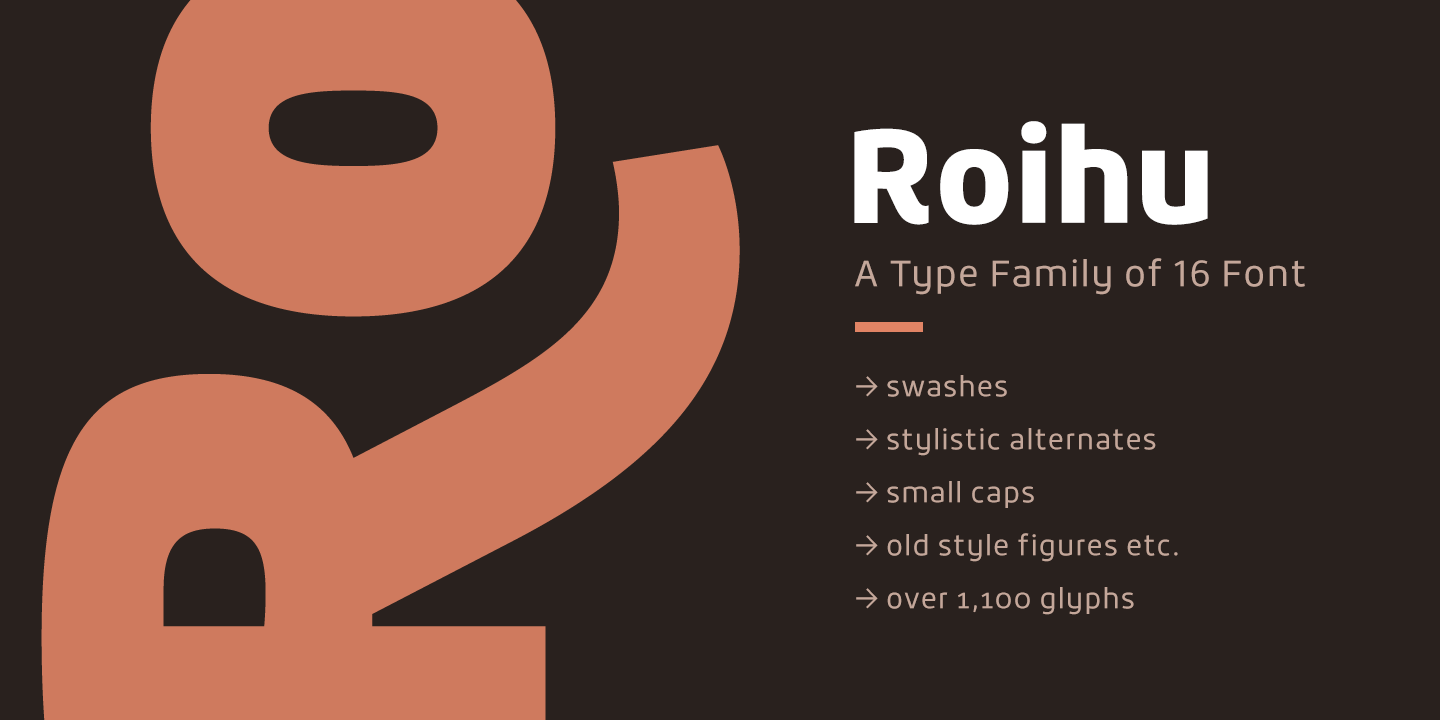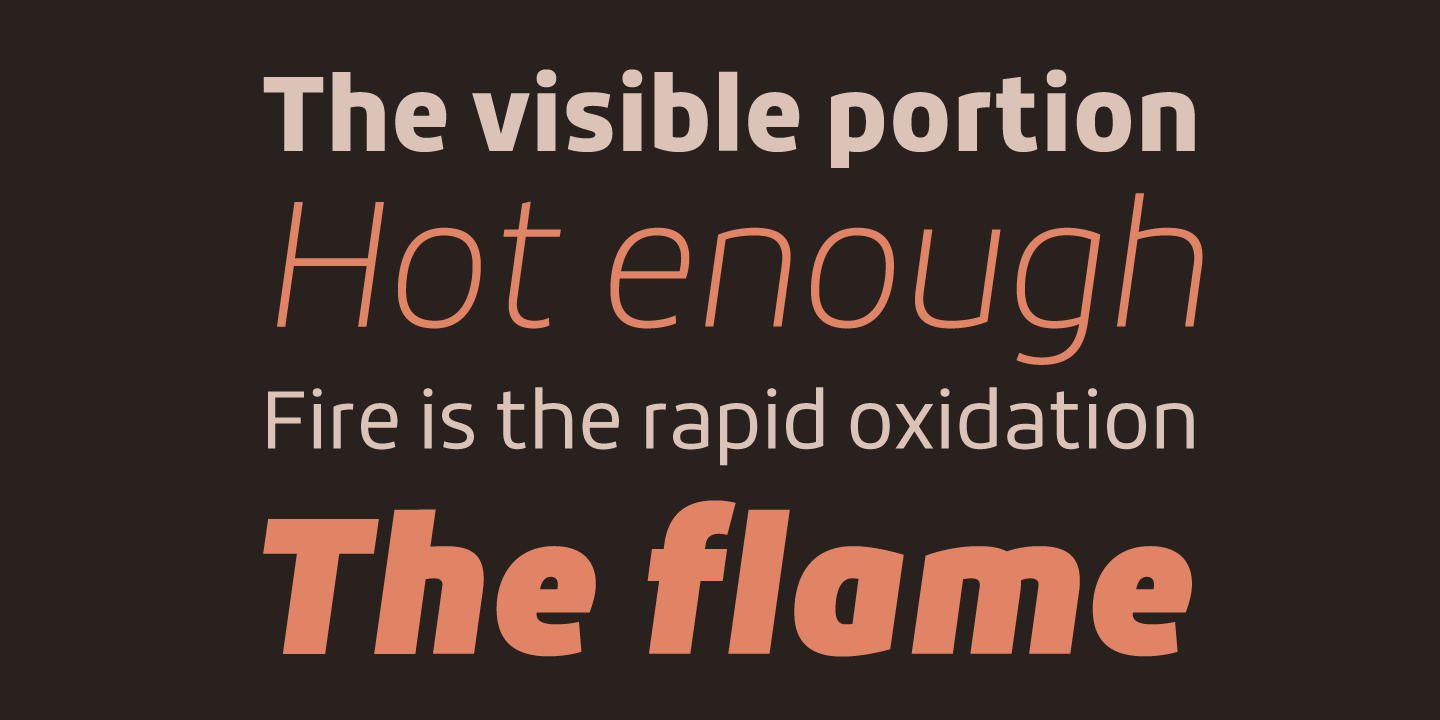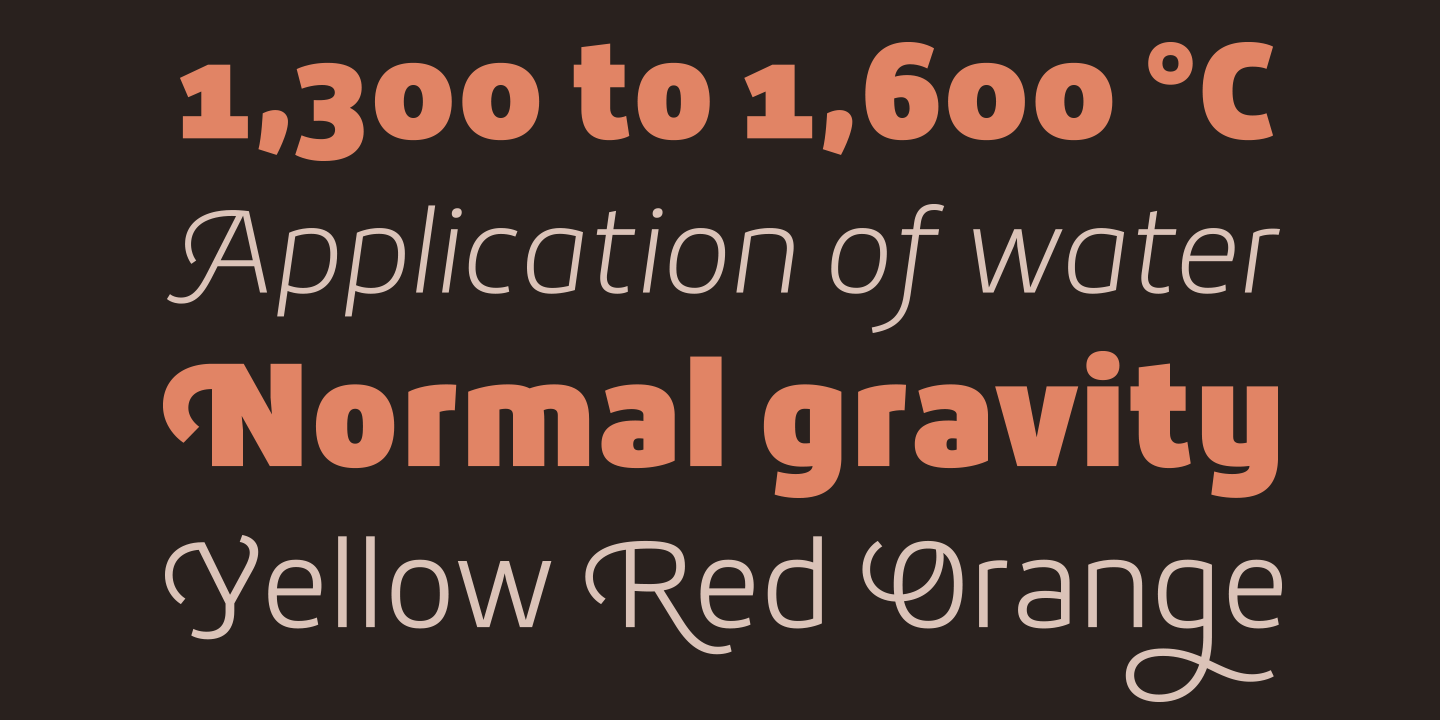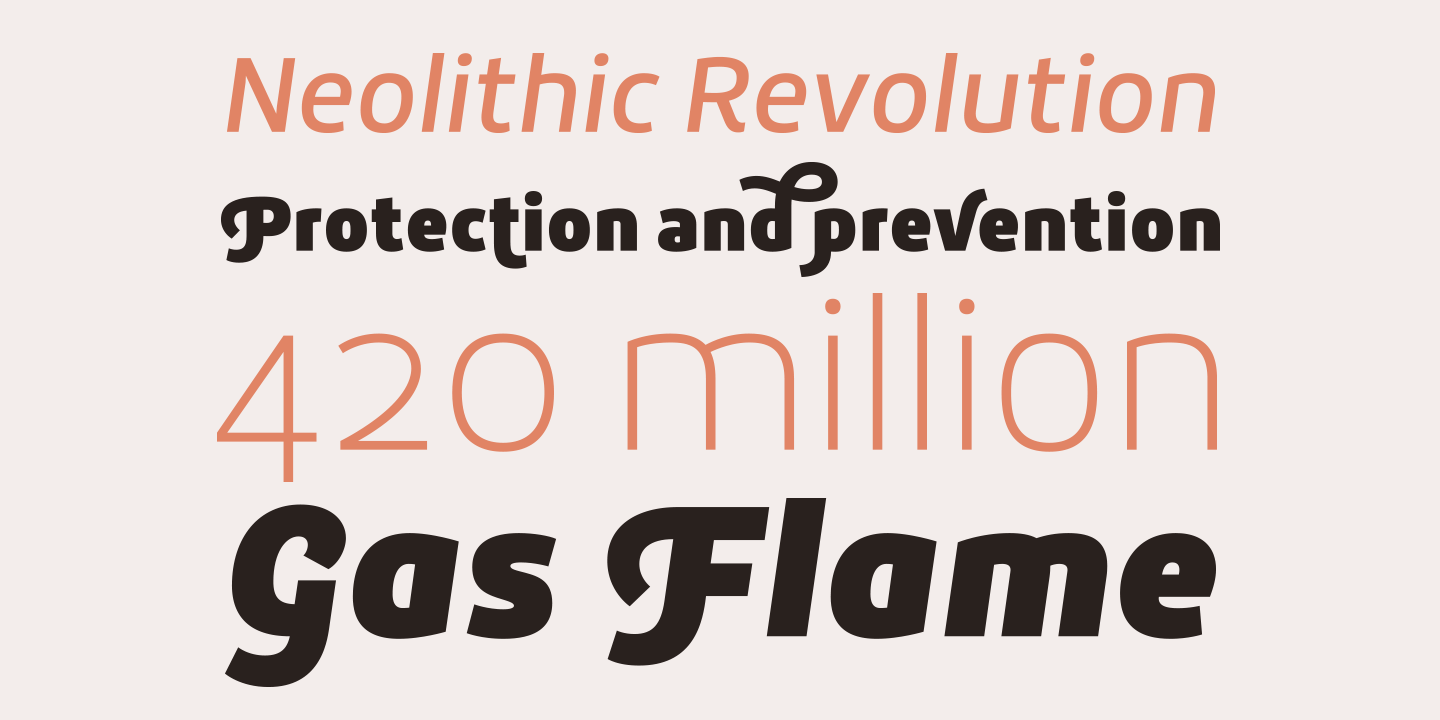
About the Roihu Font
About Roihu Font Family Roihu is a sans serif type family with 16 fonts: eight upright and eight italic weights, Each weight offers more than 1,100 glyphs, Roihu includes some groovy stylistic alternates and swashes that make your titles, packaging, logos, etc, pop out, Roihu also includes small caps, old style and lining figures, and ligatures to make sure your text and designs won’t be boring